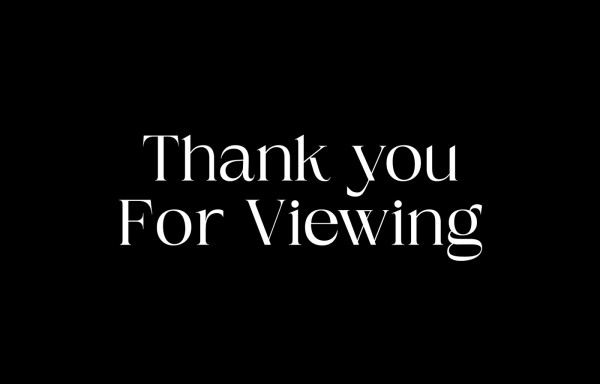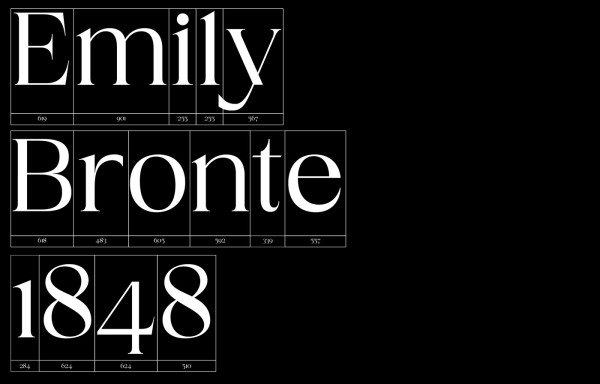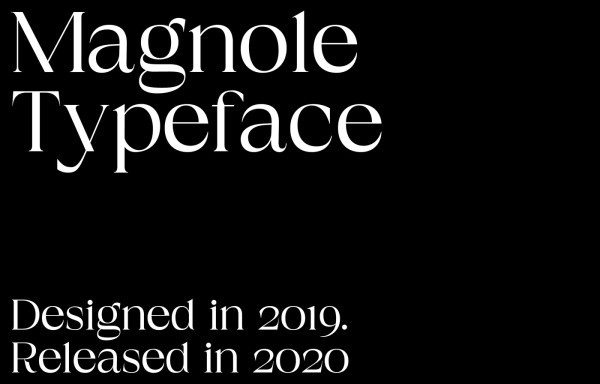
TS Magnole Font is serif font by Tillæ. It is a result of an trying to reflect 19th-century families with more language support and more modern perspective. TS Magnole has yet contrast to use on text and headlines as well. Release in January 2020.
Magnole Font
| Designer Name: | Tillæ |